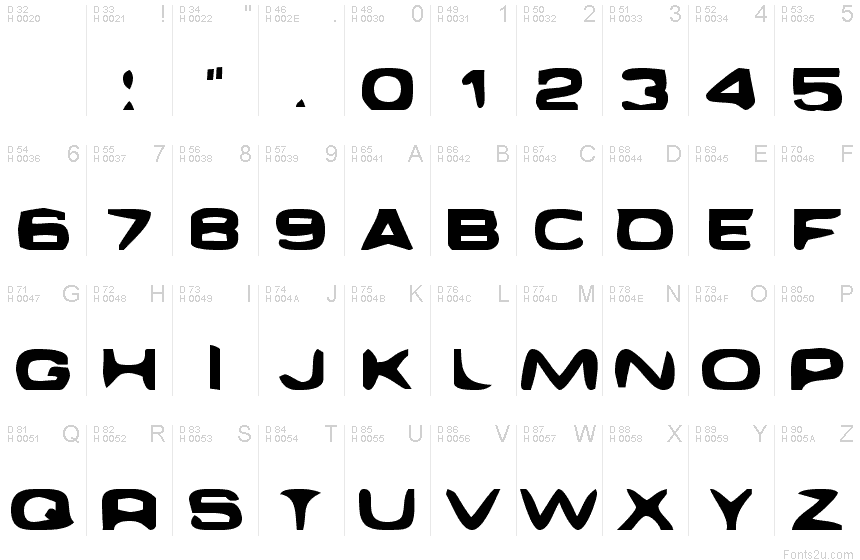
Daggmask Normal
Daggmask font by MillaN is a free bold sans with soft, swollen curves and a subtle forward lean that feels energetic without becoming harsh. The rounded shapes and tight spacing give words a compact, punchy presence. It immediately pulls attention, making even short titles feel substantial.
Use Daggmask font for game logos, club flyers, sci‑fi posters, sports branding, bold packaging, or attention‑grabbing social media graphics. This free font works best at larger sizes and pairs well with a clean neutral sans serif for supporting text or captions.